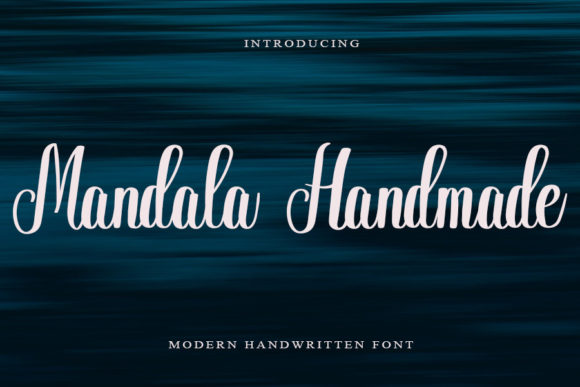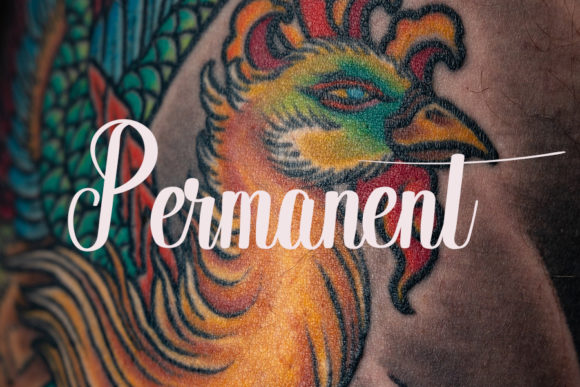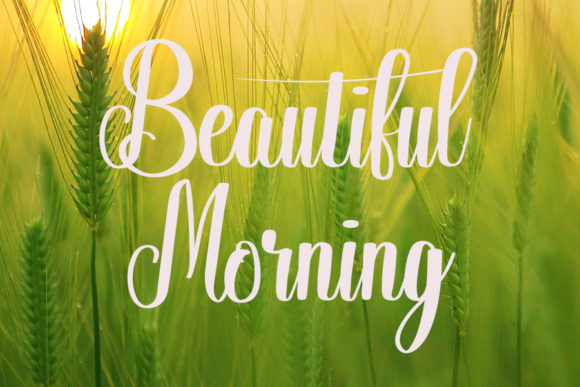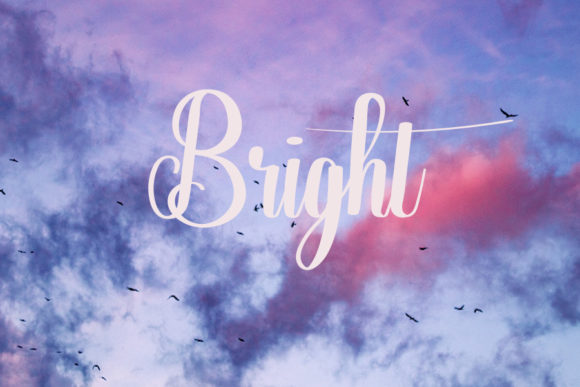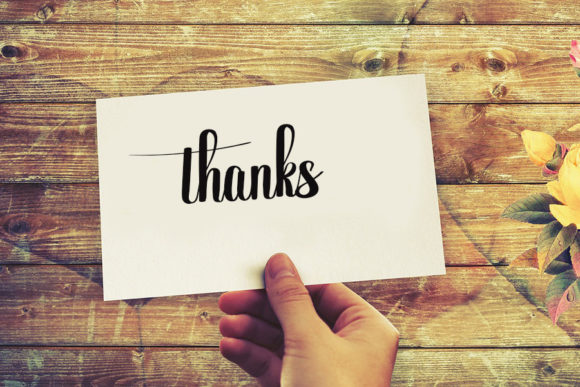
Mandala Handmade Font
About Mandala Handmade Font
Mandala Handmade is a casual handwritten font, carefully designed to become a true favorite. It maintains its classy calligraphic influences while feeling contemporary and fresh. Fall in love with it and bring your projects to the highest levels!